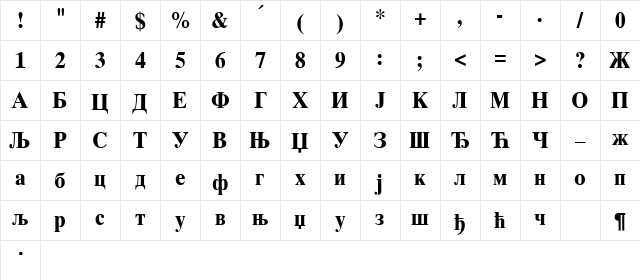
Times Cirilica Bold
Design Context for Times Cirilica
Times Cirilica is a composed and adaptable typeface that performs quietly and consistently across a wide range of design contexts. Its bold stroke weight gives it real presence on the page.